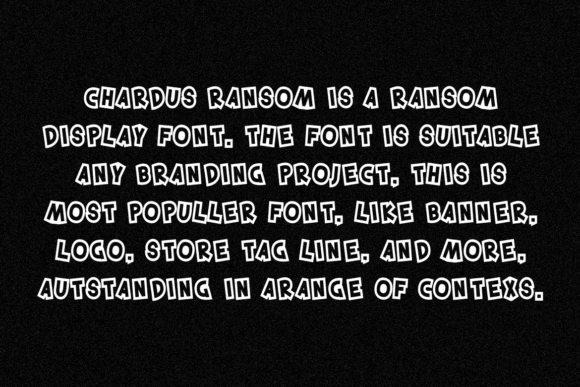
Chardus Ransom Font
Chardus Ransom Font is a bold and authentic display font.The font is suitable for any branding project like logo, sport, and many more.Outstanding in a wide range of contexts.Included Chardus Ransom.OTF Chardus Ransom.TTF